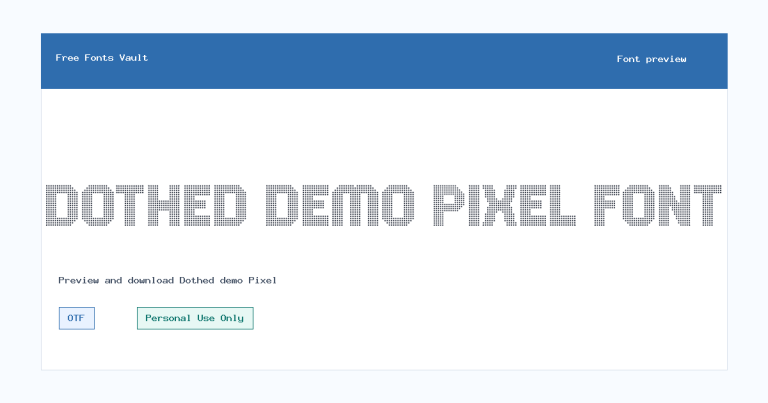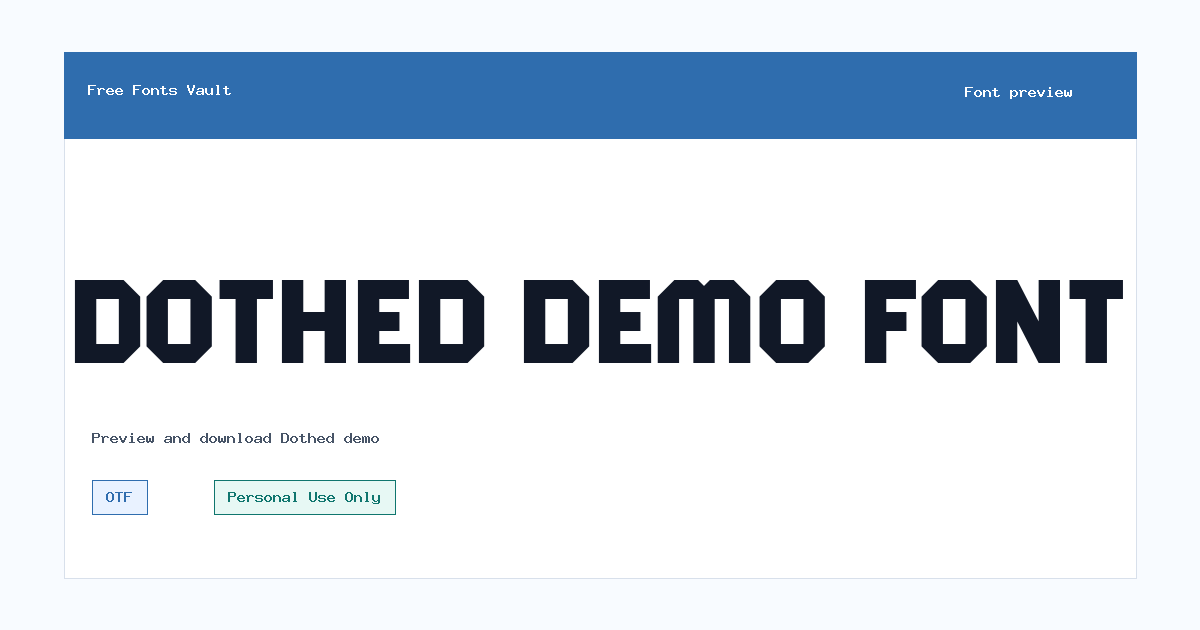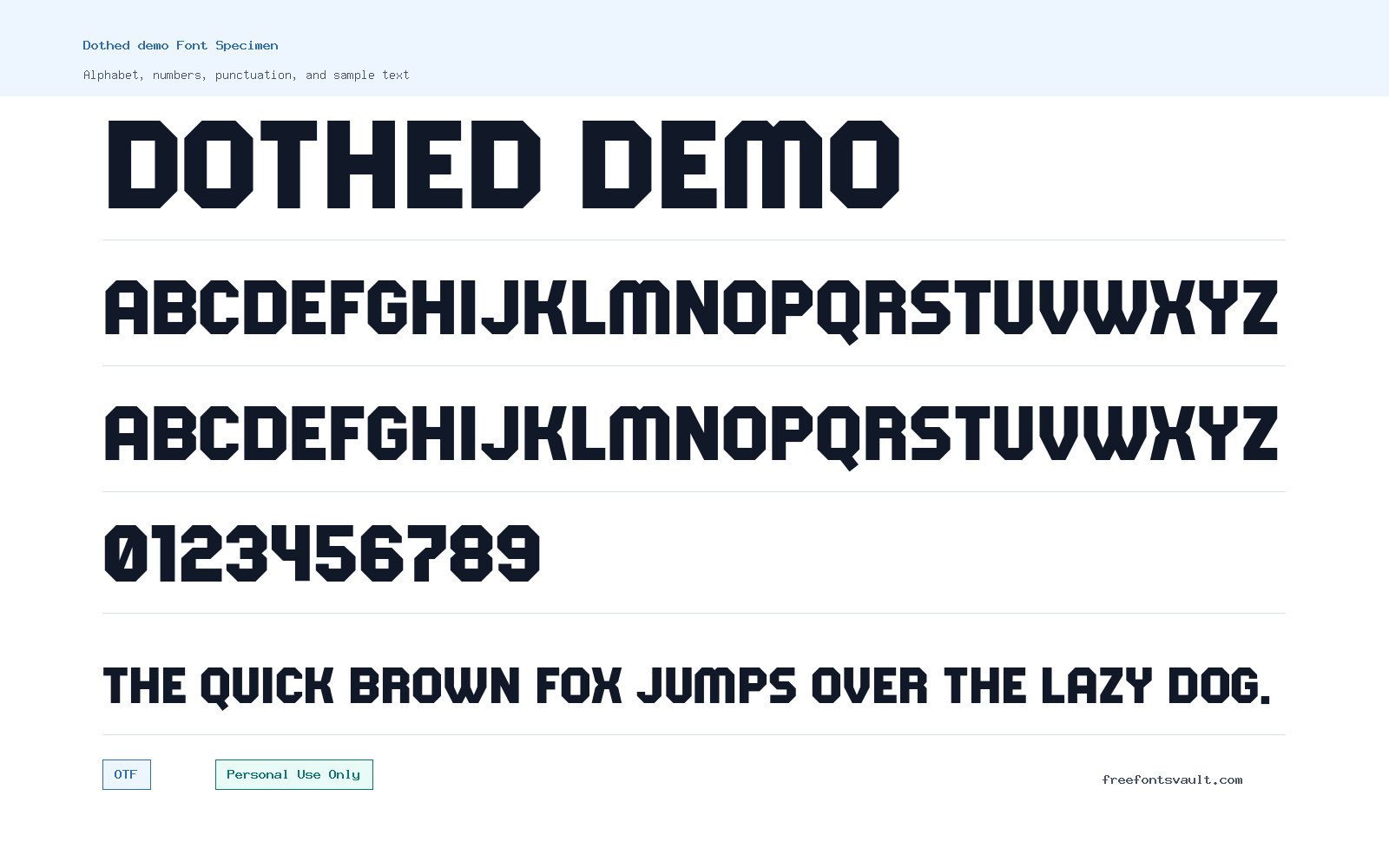
Dothed demo
- Designer Drizy Font, Panca Hasan
- Foundry Drizy Font
Dothed demo font.
Dothed demo is a display font made for short, attention-focused text. It is best treated as a decorative headline face rather than a long-reading font, so it works well when you want a bold typographic moment in a poster, logo draft, cover design, or web mockup.
About Dothed demo Font
Dothed demo is presented as an OTF display font with a regular style and normal weight. The name and file details point to a single-font family, so the safest way to use it is in focused places where one distinctive style is enough. Try it first in the preview box with brand names, event titles, product names, short quotes, initials, or two-to-four-word headings. Display fonts often depend heavily on scale, spacing, and context, so small adjustments to letter spacing and line height can make a big difference. If the design includes compact counters, unusual edges, or ornamental shapes, use larger sizes and avoid squeezing it into dense paragraphs.
For design work, Dothed demo is most useful when it carries the visual personality of a layout. It can be tested for logo concepts, social media title cards, YouTube thumbnails, posters, packaging mockups, album-style artwork, and hero headings on web layouts. Keep the surrounding typography quiet so the font does not compete with too many other decorative elements. A simple sans serif is usually a safe companion for body copy, navigation, captions, and product details. If you pair it with another expressive font, use that second font sparingly, because two display faces in one layout can quickly make the design feel crowded. For web mockups, check the font at mobile sizes before committing to it; a typeface that looks strong in a large desktop header may lose clarity in buttons, menus, or small cards.
- Display-focused style intended for short headings, title treatments, and visual identity experiments.
- Normal 400 weight, useful when a design needs one consistent decorative style rather than a full multi-weight family.
- Works best at larger sizes where spacing, shape, and personality are easier to see.
- Poster titles and event graphics that need one strong typographic focal point.
- Logo drafts, wordmarks, and name-based identity concepts for personal or non-commercial testing.
- Social media graphics, thumbnails, banners, and promotional mockups with short text.
- Website hero headings and landing-page mockups where the display type is used above simpler body text.
- Packaging concepts, label designs, cover art, and moodboard typography experiments.
- Short quotes, initials, monograms, badges, and headline treatments where readability can be checked at a large size.
The font is credited to Drizy Font and Panca Hasan, with Drizy Font listed as the foundry. A designer website is associated with Drizy Font.
Use Dothed demo where the words are short and important. Start with larger sizes, test uppercase and lowercase if available in the font file, and adjust tracking until the shapes feel balanced. For logos and posters, view the design both close up and at thumbnail size, because decorative fonts can change character when reduced. For web mockups, pair it with a clean sans serif for paragraphs and interface text. Avoid using it for long articles, legal text, product descriptions, or small navigation labels unless your own preview test shows it remains readable. If you convert text to outlines for artwork, keep an editable copy so the wording can still be changed later.
Who designed Dothed demo?
Dothed demo is credited to Drizy Font and Panca Hasan, with Drizy Font listed as the foundry.
What is Dothed demo best used for?
It is best for display use: logos, posters, title graphics, thumbnails, packaging mockups, and other short-text designs where the font can be shown at a larger size.
Is Dothed demo good for body text?
It is better for headings and short phrases. For paragraphs or small text, pair it with a simple, readable body font.
How should I pair Dothed demo with other fonts?
Use Dothed demo as the main display font, then pair it with a neutral sans serif for body copy, captions, menus, and supporting information.